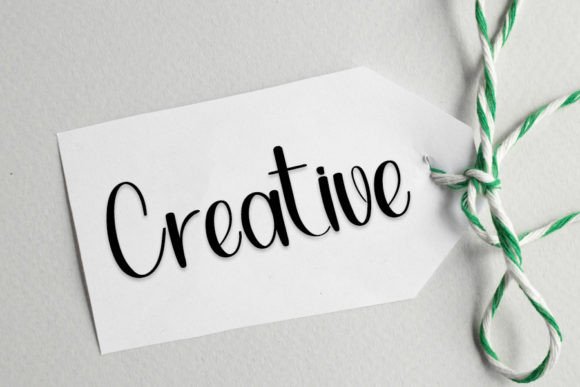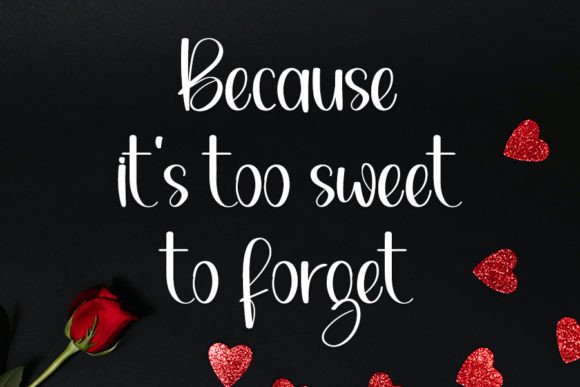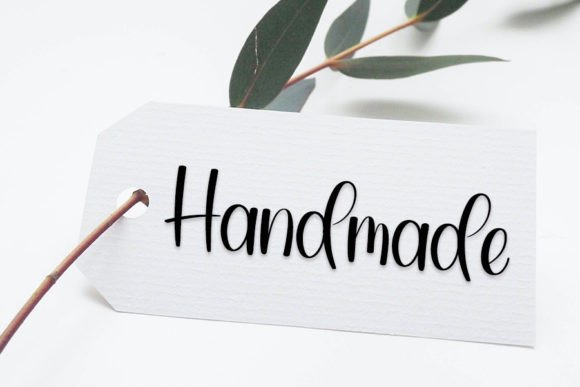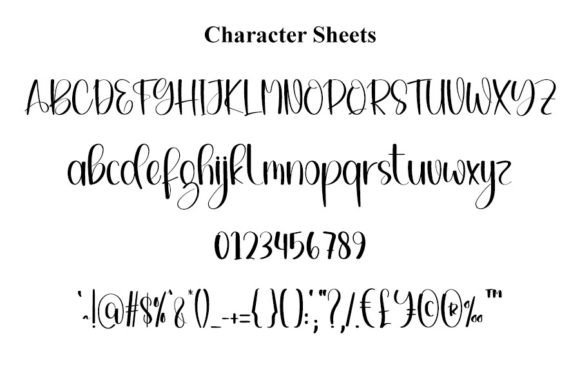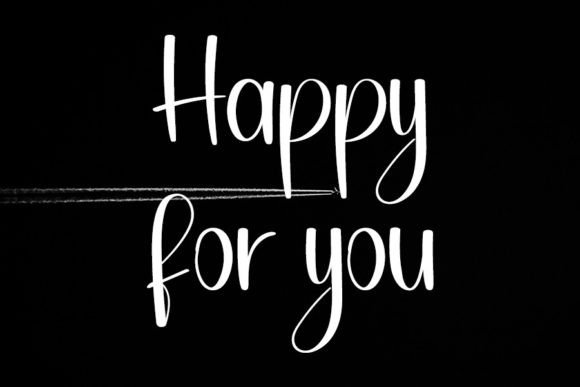
The Bingo Signature Font: A Designer’s New Best Friend
I’ll never forget the time I was working on a wedding invitation project, and my client asked for a font that was ” elegant, yet playful” and “totally unique”. I scoured the internet, tried out a gazillion fonts, but nothing seemed quite right. That was until I stumbled upon the Bingo Signature font. It’s been a game-changer ever since! 💕
- ✨ The incredibly unique and versatile style that sets it apart from other fonts
- ✅ The casual, flowing handwritten feel that’s perfect for wedding invitations, stationery, and social media posts
- 💫 The font’s ability to add a touch of whimsy and personality to any design project
- 🎉 The extensive range of OpenType features, glyphs, and stylistic alternates that allow for endless creativity
While Bingo Signature is an amazing font, there are a few things to keep in mind: 🤔
- ⚠️ Some of the more intricate glyphs and swashes can be a bit finicky to work with, especially for beginners
- ⚠️ The font can be a bit overused if not balanced with other design elements
The Story Behind Bingo Signature
Bingo Signature was designed by a talented font designer who wanted to create a font that was both elegant and playful. The designer drew inspiration from classic handwritten scripts, combined with a modern twist to create a truly unique font. The result is a font that’s perfect for designers, crafters, and creative hobbyists who want to add a touch of personality to their projects.
Q: Is Bingo Signature suitable for body text?
A: While Bingo Signature is a beautiful font, it’s best suited for headlines, titles, and short blocks of text. For body text, you may want to choose a font with better readability.